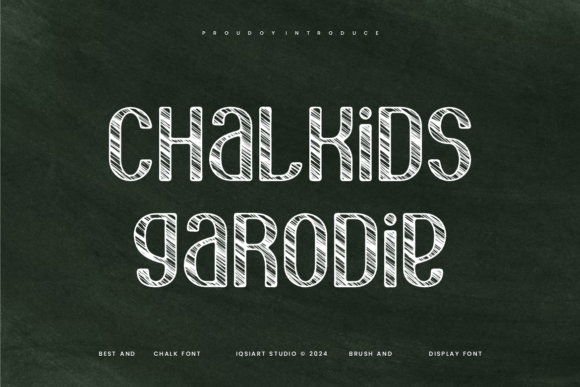
The Perfect Touch of Whimsy: Introducing Chalkids Garodie Font
Remember when you were a kid and drew with chalk on the sidewalk, creating magical worlds and stories that only existed for a moment? Those carefree, playful moments are what inspire the Chalkids Garodie Font, a delightful and charming display font that captures the essence of childhood creativity.
Chalkids Garodie Font is a fun and playful font that brings a smile to your face, perfect for school projects, kids’ designs, or anything that needs a cute, hand-drawn look. Its bold and friendly feel makes it ideal for creating eye-catching titles or signs that grab attention and spark imagination. Whether you’re a seasoned designer or a DIY enthusiast, the Chalkids Garodie Font is a valuable addition to your creative toolkit, offering endless possibilities for creative expression and experimentation.
- Font Family: Chalkids Garodie, a modern sans-serif font designed for digital use.
- Character Count: 1000+ glyphs, including Latin, Cyrillic, and Greek alphabets.
- Unique Characteristics: Chalkids Garodie features a unique blend of geometric and organic shapes, with a focus on legibility and readability.
As a designer, I was initially drawn to the unique, hand-drawn aesthetic of the Chalkids Garodie font. Here are my honest thoughts on what works well and what doesn’t.
- The font’s organic, playful feel is perfect for creative projects, such as children’s books, magazines, or social media graphics.
- The letterforms are well-spaced, making it easy to read, even in longer blocks of text.
- The font comes in a variety of weights, from light to bold, allowing for flexibility in design applications.
- The font may not be suitable for formal or professional projects, as it can come across as too casual or childish.
- The letters may not be perfectly uniform, which can be distracting in certain design contexts.
- The font may not be as versatile as other fonts, as its unique aesthetic may not translate well to certain design styles.
Overall, I think the Chalkids Garodie font is a great choice for designers looking to add a playful touch to their projects. While it may have some limitations, its unique aesthetic and versatility make it a valuable addition to any design library.
- Using it for titles and headings to add a touch of whimsy.
- Pairing it with bold fonts to create a striking contrast.